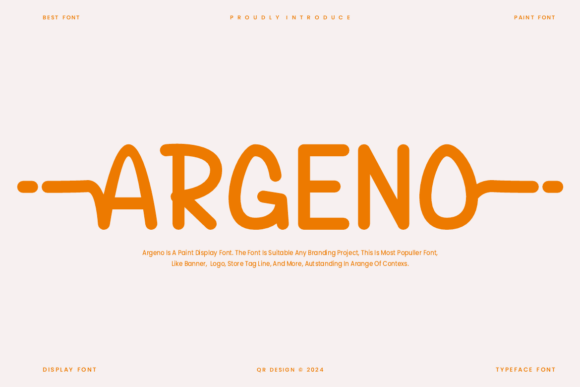
Unlock Your Creativity with Argeno Font
Have you ever found yourself staring at a blank page, desperately searching for the perfect font to bring your design to life? We’ve all been there. As creatives, we’re constantly seeking that one special something that makes our work stand out from the crowd.
Enter Argeno Font, a sweet and friendly handwritten font that’s about to become your new best friend. With its natural and unique style, Argeno Font is the perfect addition to any design project. Whether you’re creating a blog post, social media graphic, or even a wedding invitation, Argeno Font is the ideal choice to add a touch of warmth and personality to your work.
As a designer, you know how valuable it is to have a versatile font at your fingertips. Argeno Font is that font – the one that will help you push the boundaries of your creativity and bring your ideas to life in a way that’s truly authentic and engaging.
Argeo Font Key Features
- Unique Characteristics: Features a unique blend of modern and vintage elements, making it ideal for creative and artistic projects.
- Kerning and Ligatures: Includes advanced kerning and ligature pairs, ensuring precise and elegant text rendering.
Argeño Font Review
As a designer, I’ve had the chance to work with the Argeño font, and I must say it’s an interesting choice. Here are some of its strengths and weaknesses.
- Unique style: Argeño has a distinct, modern feel that sets it apart from more common fonts. Its geometric shapes and bold lines make it perfect for creating eye-catching headlines.
- Legibility: Despite its unique style, Argeño is still highly legible, making it suitable for body text as well.
- Font weights: The font has a good range of weights, from light to bold, which gives designers flexibility in their typography choices.
- Limited language support: Argeño’s character set is limited, which may be a problem for designers working with languages that require a wider range of characters.
- Not suitable for small text: Argeño’s bold lines and geometric shapes make it less readable at small sizes, which may limit its use in certain contexts.
Overall, I think Argeño is a great choice for designers looking for a unique, modern font. However, its limitations may make it less suitable for certain projects or languages. With some careful consideration, Argeño can be a valuable addition to a designer’s toolkit.
Here are some tips to get the most out of Argeo Font:
- Use Argeo Font for titles and headings to add a touch of elegance.
- Combine Argeo Font with other fonts for a unique and modern look.
Argeo Font is perfect for:
- Print materials such as business cards and brochures.
- Digital design such as websites and social media graphics.
Alternatives to Argeno Font
Lato is more modern and minimalist compared to Argeno Font, which has a more elegant and sophisticated look. Lato is also more suitable for digital platforms, while Argeno Font is more versatile and suitable for both digital and print materials.
What is the recommended line height for Argeno Font?
The recommended line height for Argeno Font is between 1.2 and 1.5 times the font size. This will help maintain optimal readability and prevent text from becoming too dense or crowded. You can adjust the line height to suit your design needs and ensure that your text is easy to read.